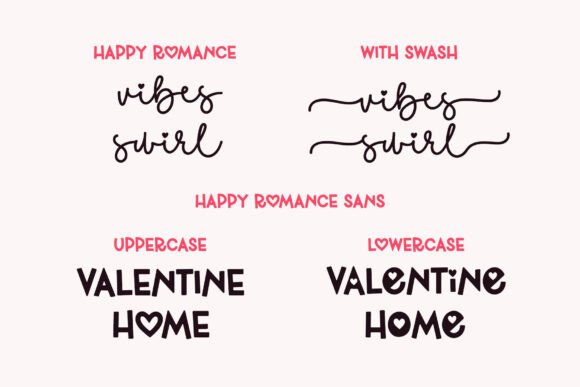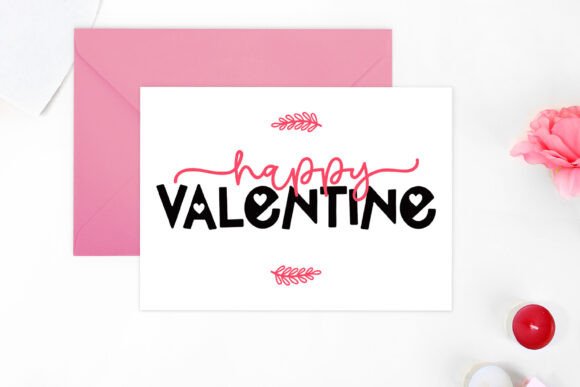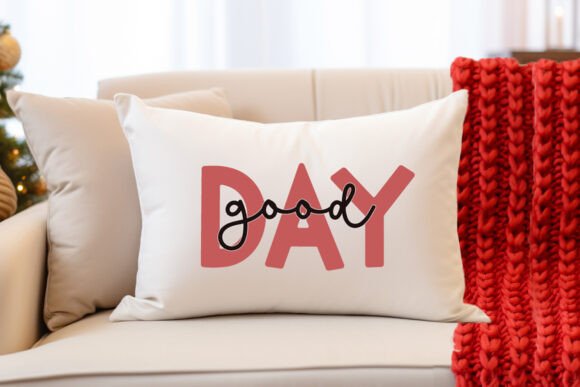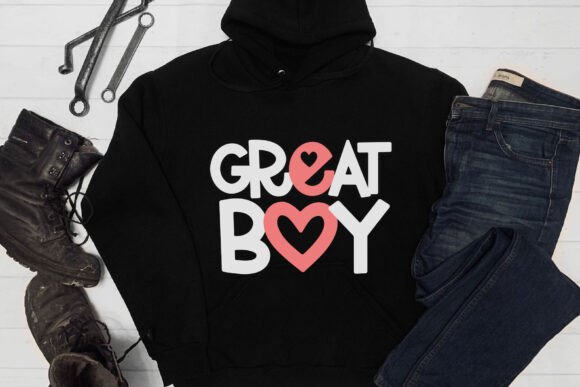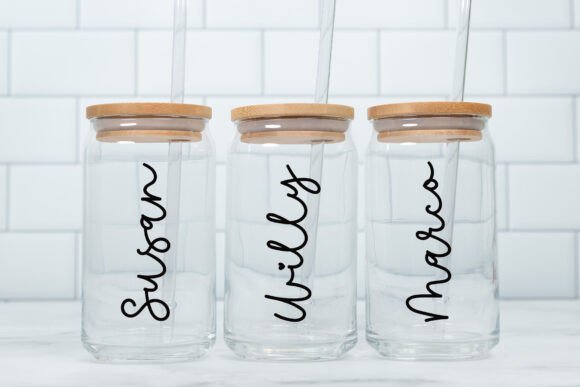
Introducing Happy Romance Font: The Perfect Choice for Cute and Romantic Designs
Are you a designer or crafter looking for a font that can add a touch of romance and playfulness to your projects? Look no further than Happy Romance Font, a delightful font duo that is sure to capture the hearts of your audience. In this article, we’ll dive into the features and benefits of Happy Romance Font, and explore the many ways you can use it to create stunning designs.
What is Happy Romance Font?
Happy Romance Font is a charming font duo that consists of two complementary fonts: a single-line script font with swashes and an all-caps bold display font. The script font is bouncy, fun, and modern, with elegant swashes that add a touch of sophistication to any design. The all-caps bold display font, on the other hand, is perfect for headlines and titles, providing a bold and eye-catching contrast to the script font.
Key Features of Happy Romance Font
- Cute and Festive: Happy Romance Font is designed to be cute and festive, making it perfect for designs with romantic themes, such as Valentine’s Day, anniversaries, and weddings.
- Bouncy and Fun: The script font has a playful, bouncy feel that adds a touch of whimsy to any design.
- Modern and Sophisticated: Despite its playful nature, Happy Romance Font is also modern and sophisticated, making it suitable for a wide range of design projects.
- Swashes: The script font comes with elegant swashes that can be used to add a touch of elegance to your designs.
- All-Caps Bold Display Font: The all-caps bold display font is perfect for headlines and titles, providing a bold and eye-catching contrast to the script font.
Uses for Happy Romance Font
Happy Romance Font is a versatile font duo that can be used for a wide range of design projects, including:
- Valentine’s Day Designs: Create romantic designs for Valentine’s Day, including cards, invitations, and social media graphics.
- T-Shirt Designs: Use Happy Romance Font to create fun and playful t-shirt designs for special occasions or everyday wear.
- School Projects: Happy Romance Font is perfect for school projects, such as posters, presentations, and reports.
- Holiday Decorations: Create festive holiday decorations, such as garlands, banners, and signs, using Happy Romance Font.
- Birthday Invitations: Design beautiful birthday invitations that will make your guests feel special.
- Summer Designs: Use Happy Romance Font to create fun and playful summer designs, such as beach balls, sunglasses, and ice cream cones.
- Crafting: Happy Romance Font is perfect for crafting projects, such as scrapbooking, card making, and DIY decorations.
- Stickers: Create adorable stickers using Happy Romance Font, perfect for laptops, water bottles, and journals.
- Sublimation: Use Happy Romance Font to create stunning sublimation designs for mugs, tumblers, and other products.
Why Choose Happy Romance Font?
Happy Romance Font is a unique and versatile font duo that offers a range of benefits, including:
- Easy to Read: Happy Romance Font is clear and easy to read, making it perfect for designs that require a high level of legibility.
- Customizable: The font duo comes with swashes and alternative characters, allowing you to customize your designs to suit your needs.
- Time-Saving: Happy Romance Font is a pre-designed font duo that saves you time and effort, allowing you to focus on other aspects of your design project.
- Cost-Effective: Happy Romance Font is an affordable font duo that offers great value for money.
Happy Romance Font is a delightful font duo that is perfect for designers and crafters looking to add a touch of romance and playfulness to their projects. With its cute and festive design, bouncy and fun script font, and bold and eye-catching display font, Happy Romance Font is sure to capture the hearts of your audience. Whether you’re designing for Valentine’s Day, t-shirt designs, school projects, or holiday decorations, Happy Romance Font is a versatile and cost-effective solution that is sure to meet your needs.